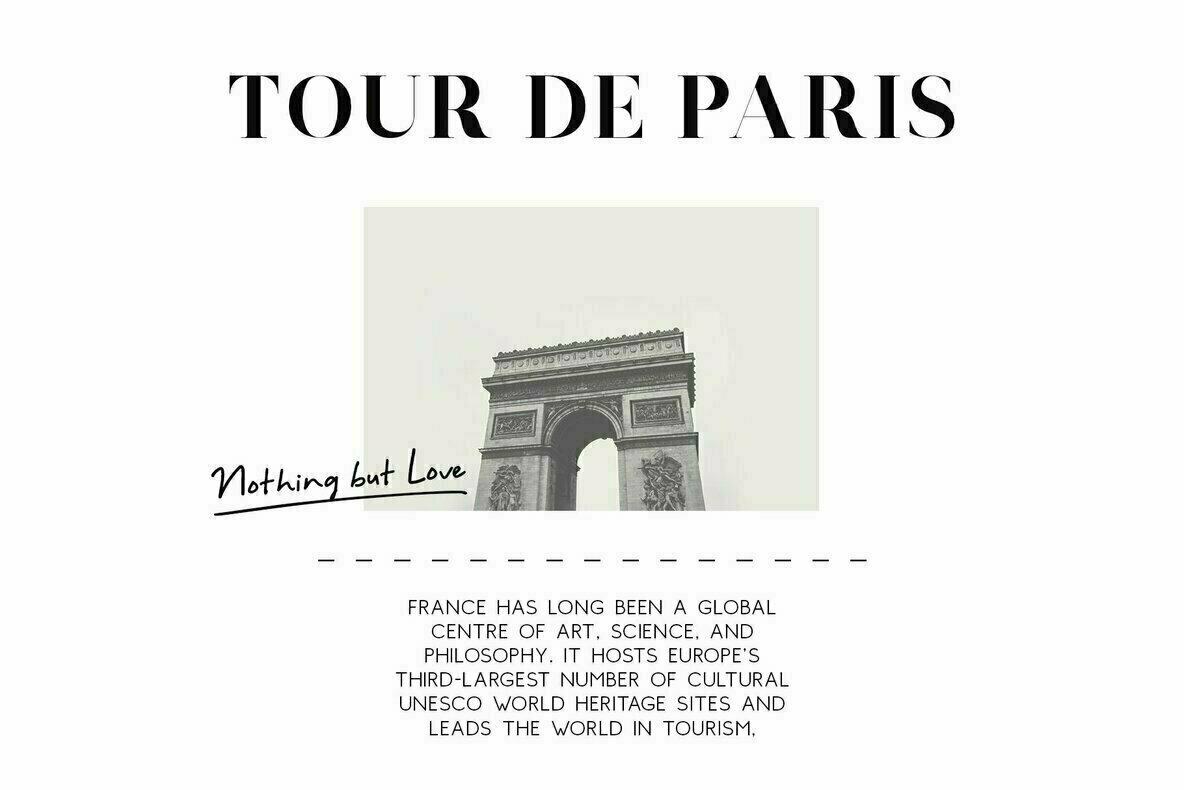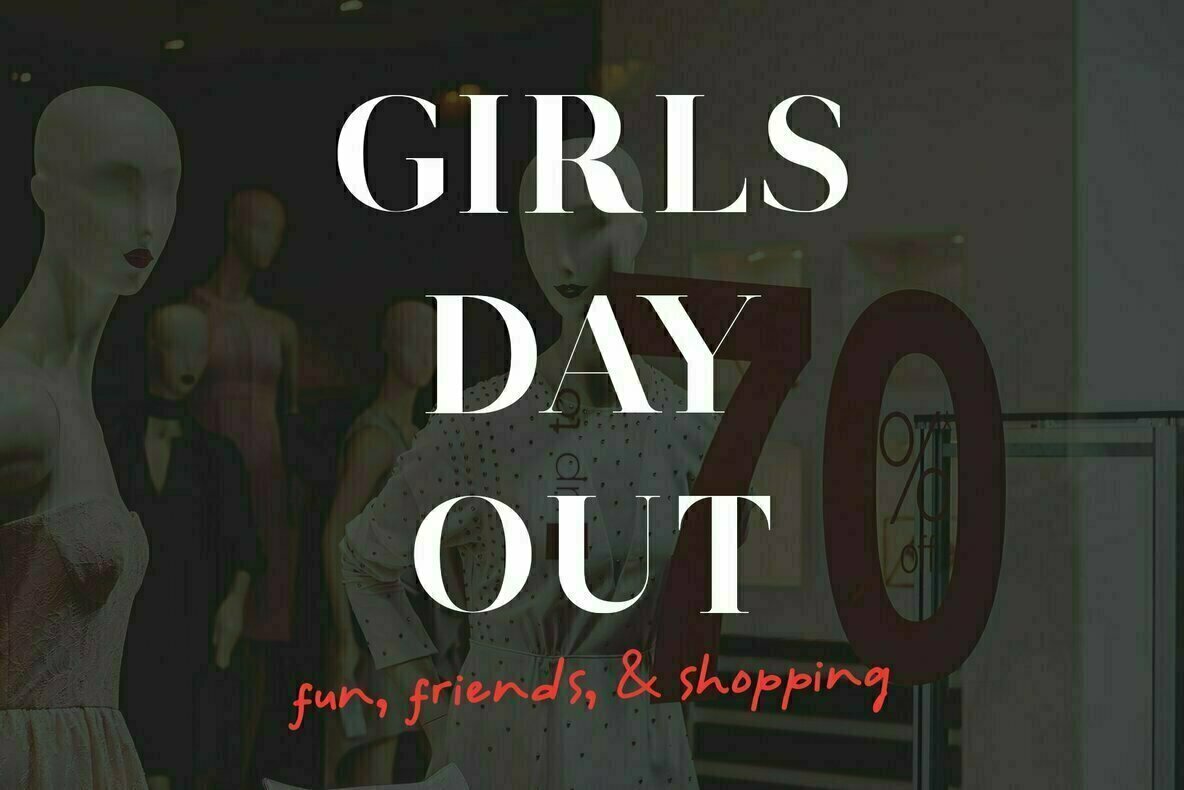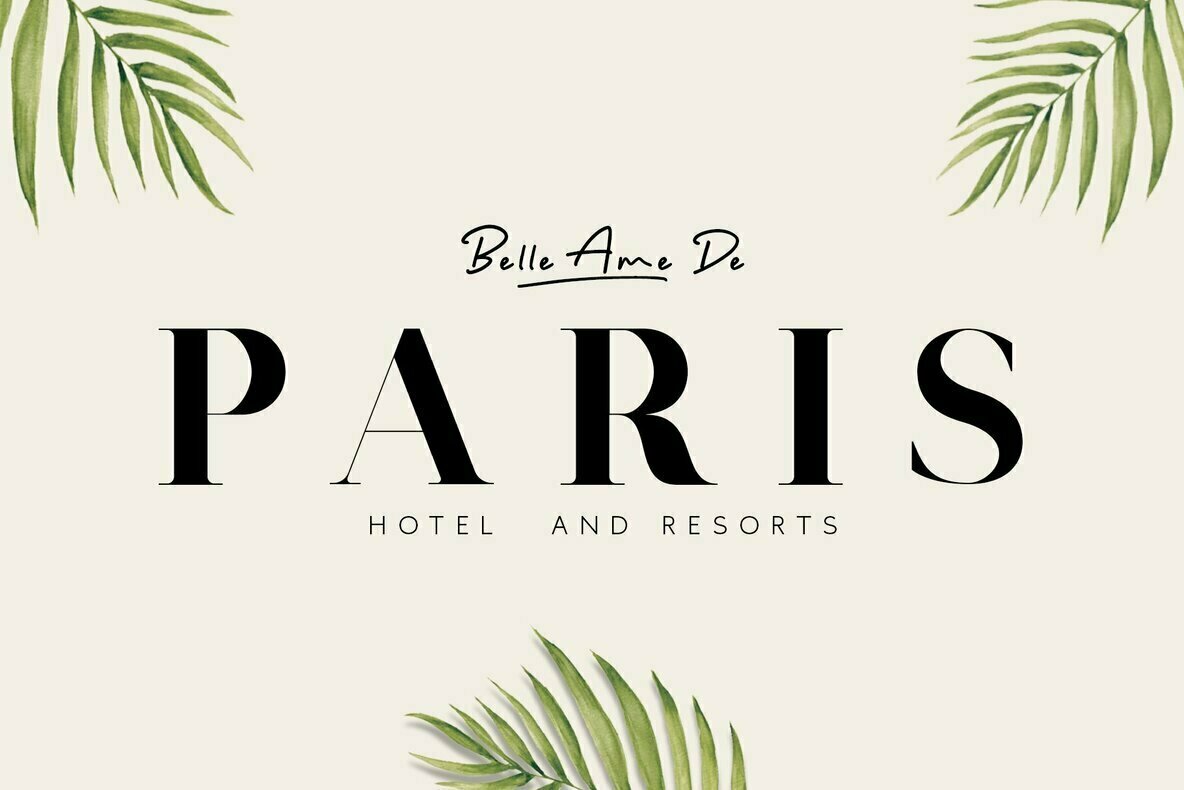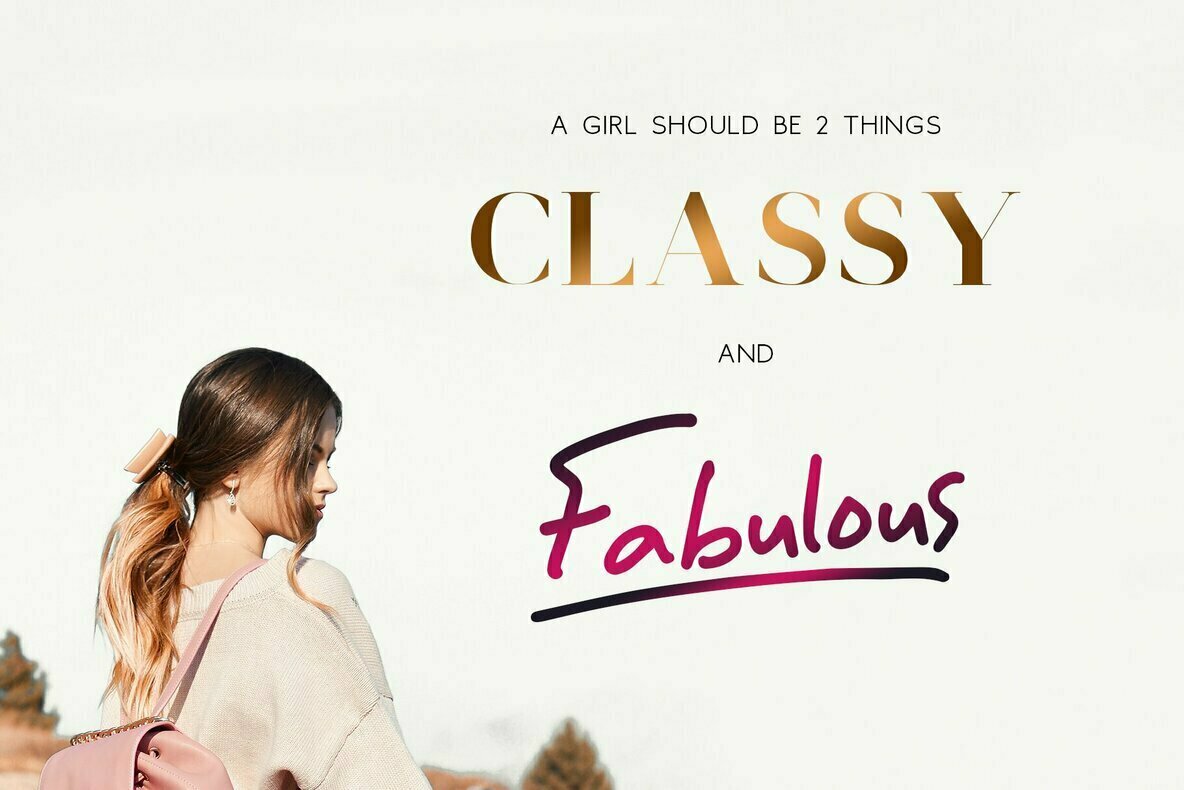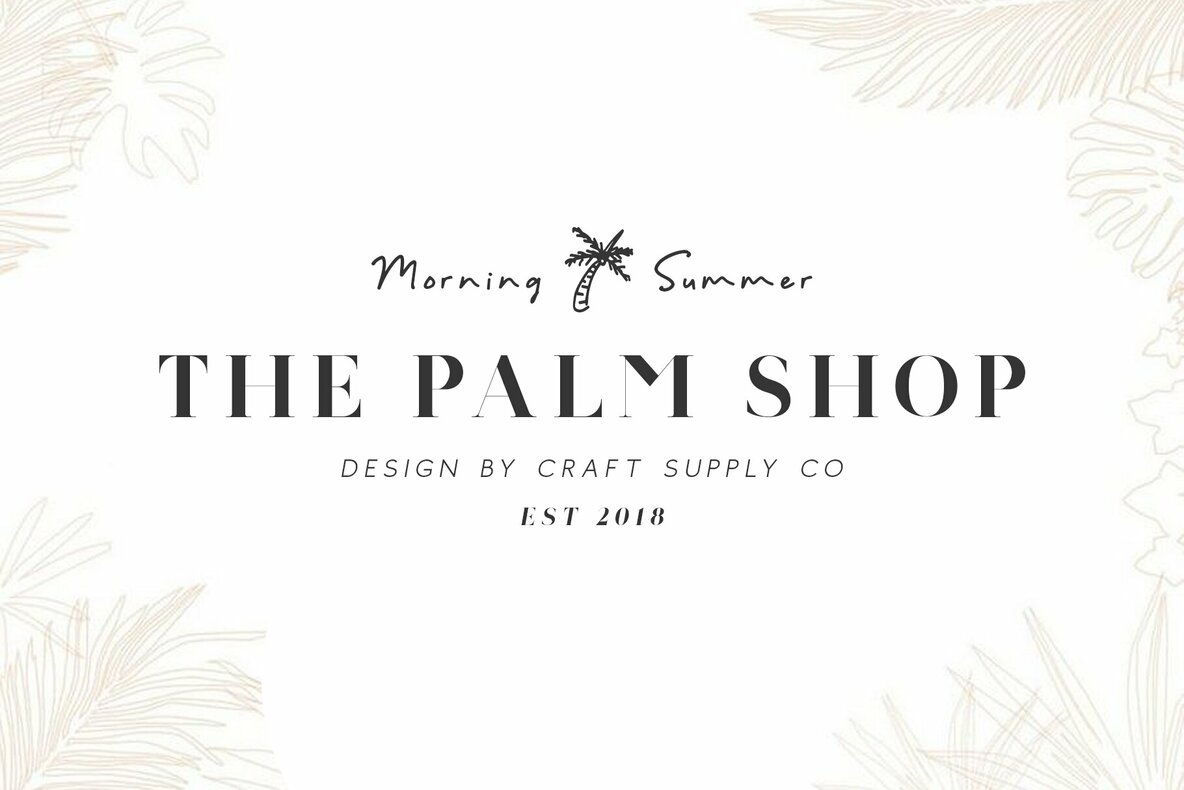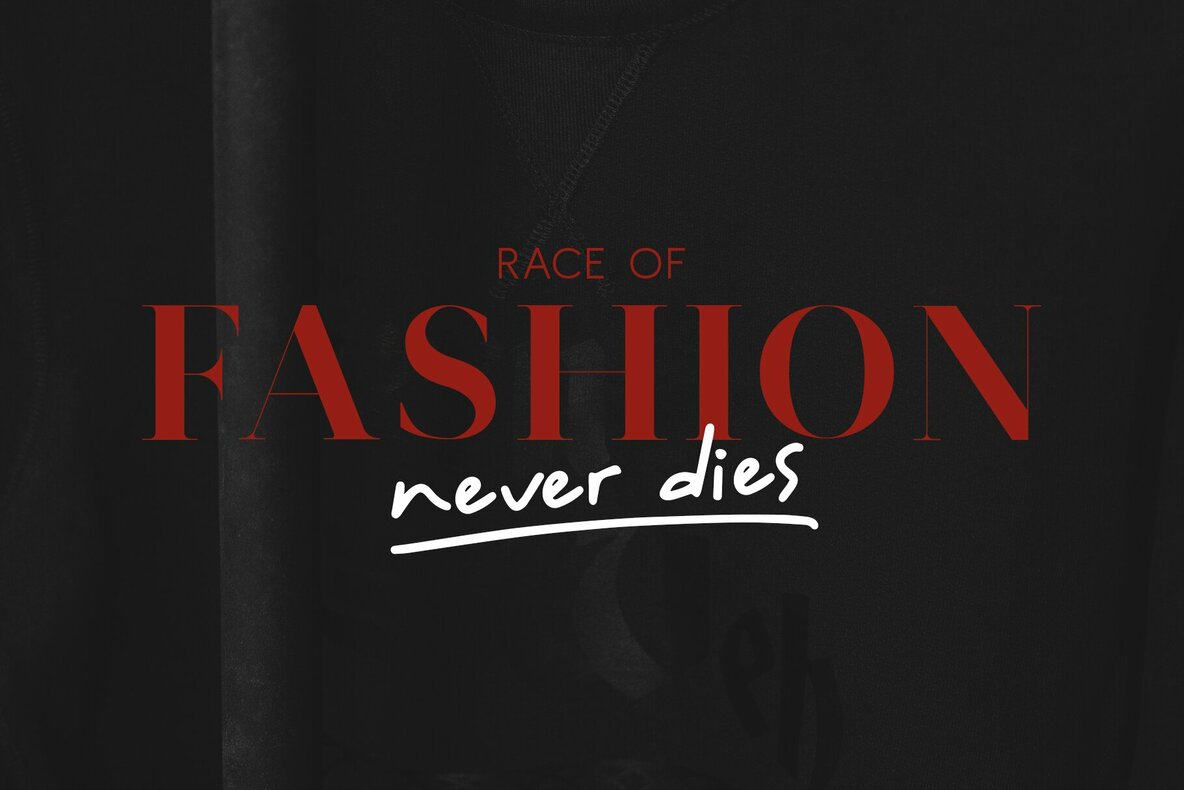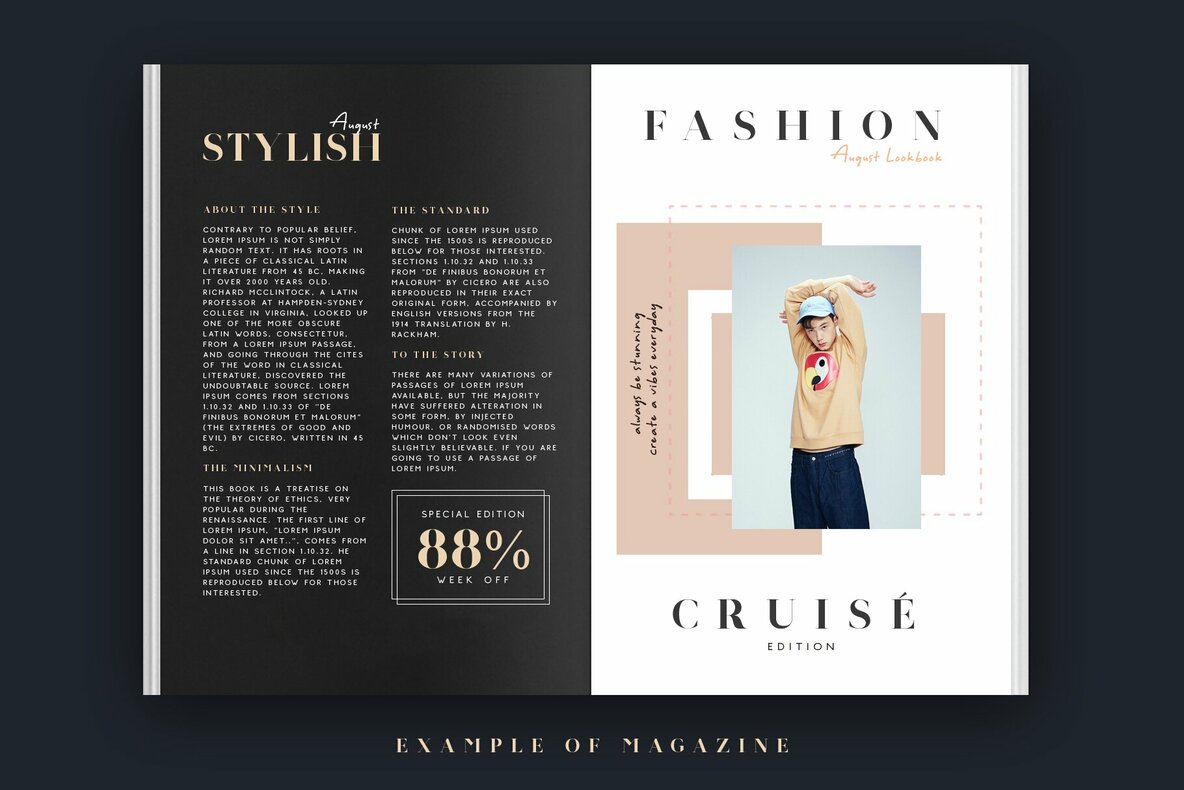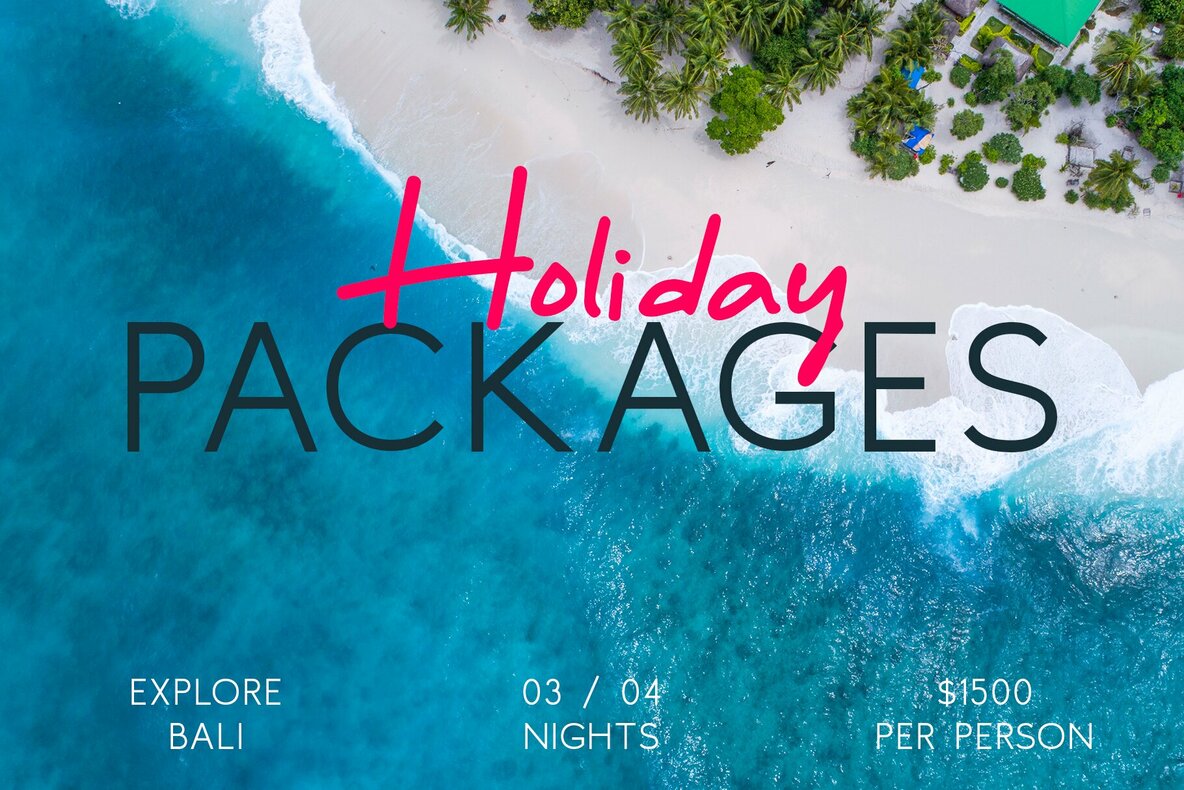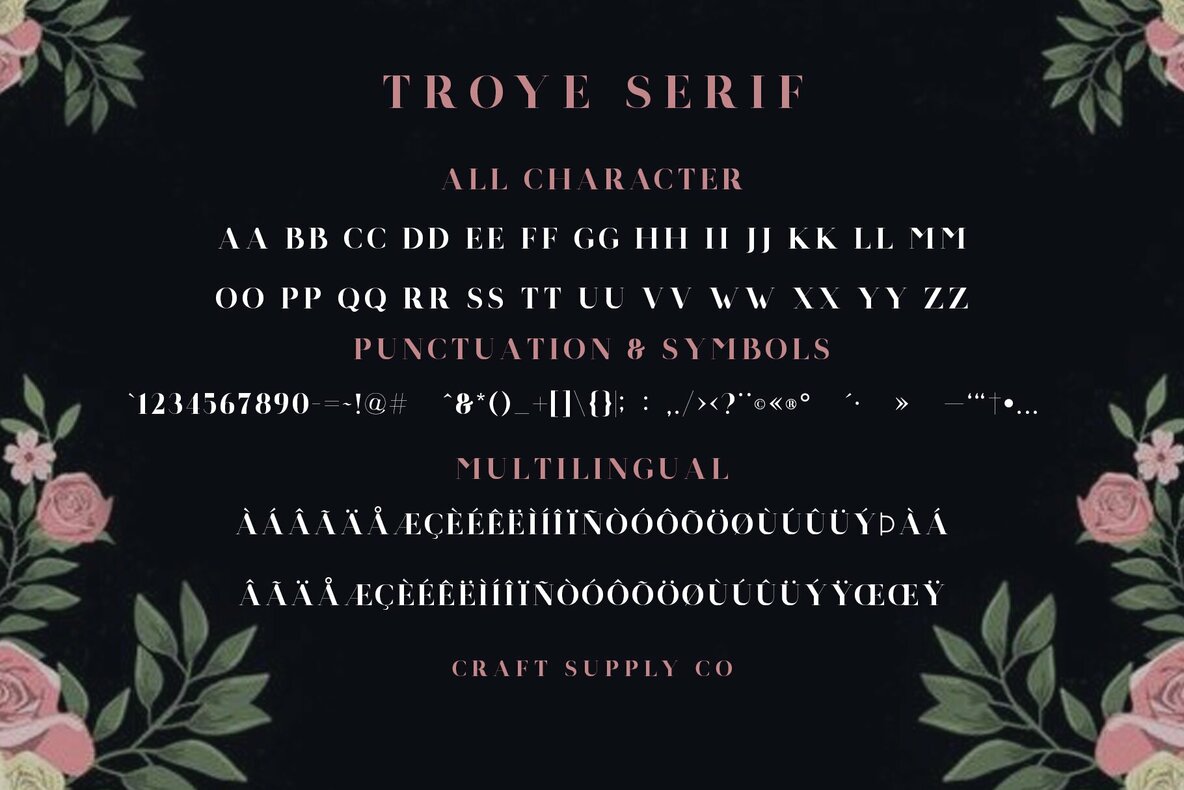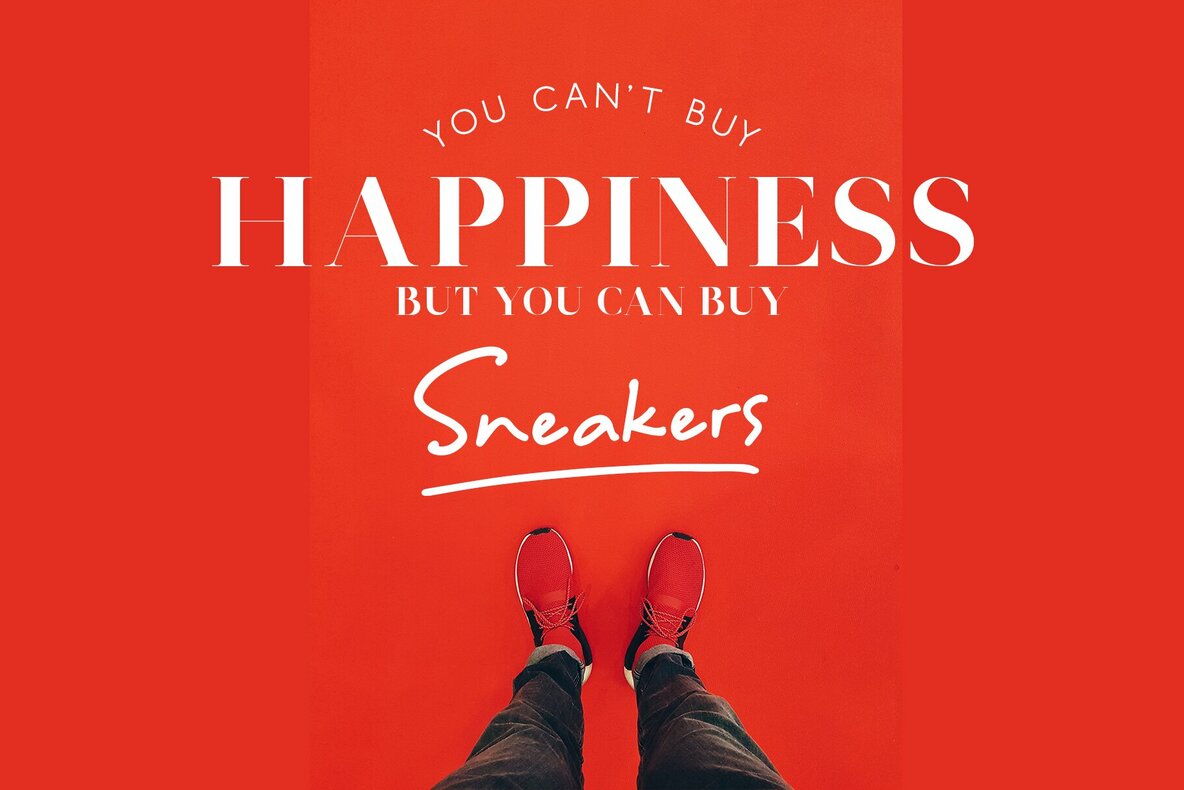
Troye Font Trio
The Troye Font Trio by Craft Supply Co. merges the elegance of modern serif fonts, the clarity of clean sans serifs, and the creativity of script fonts. These fonts' design reflects a modern sans serif style with low stroke contrast, slightly squarish round character shapes, and a sophisticated simplicity. The Troye Font Trio offers versatility across various projects, whether you're looking to create logos, greeting cards, or art quotes. Its applicability extends to branding efforts, stationary designs, and even blog headers. Engage in modern envelope lettering for book designs or embrace the hand-drawn and watercolor themes that are currently trending. Ideal for wedding stationery, pop vintage designs, and any DIY endeavor, this font trio enhances the aesthetic appeal of your artistic projects.Troye Font Trio: A Diverse Typeface Collection
Distinctive Attributes